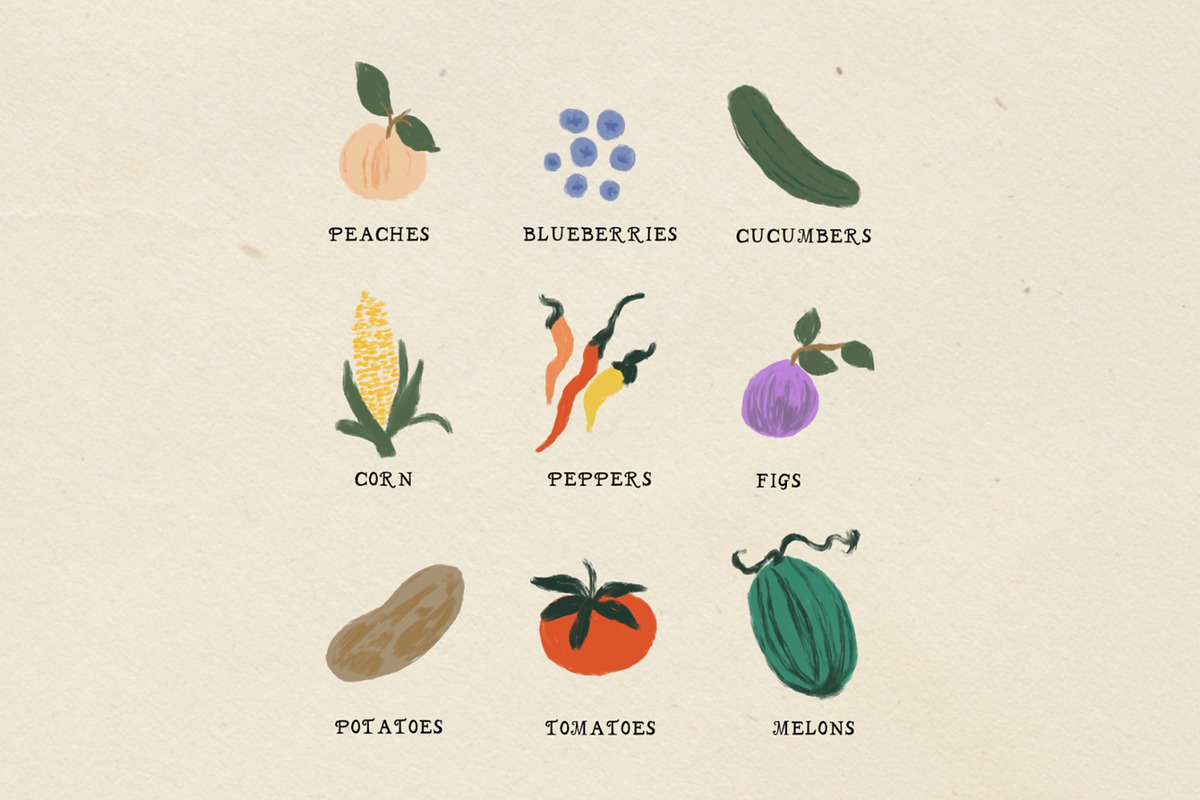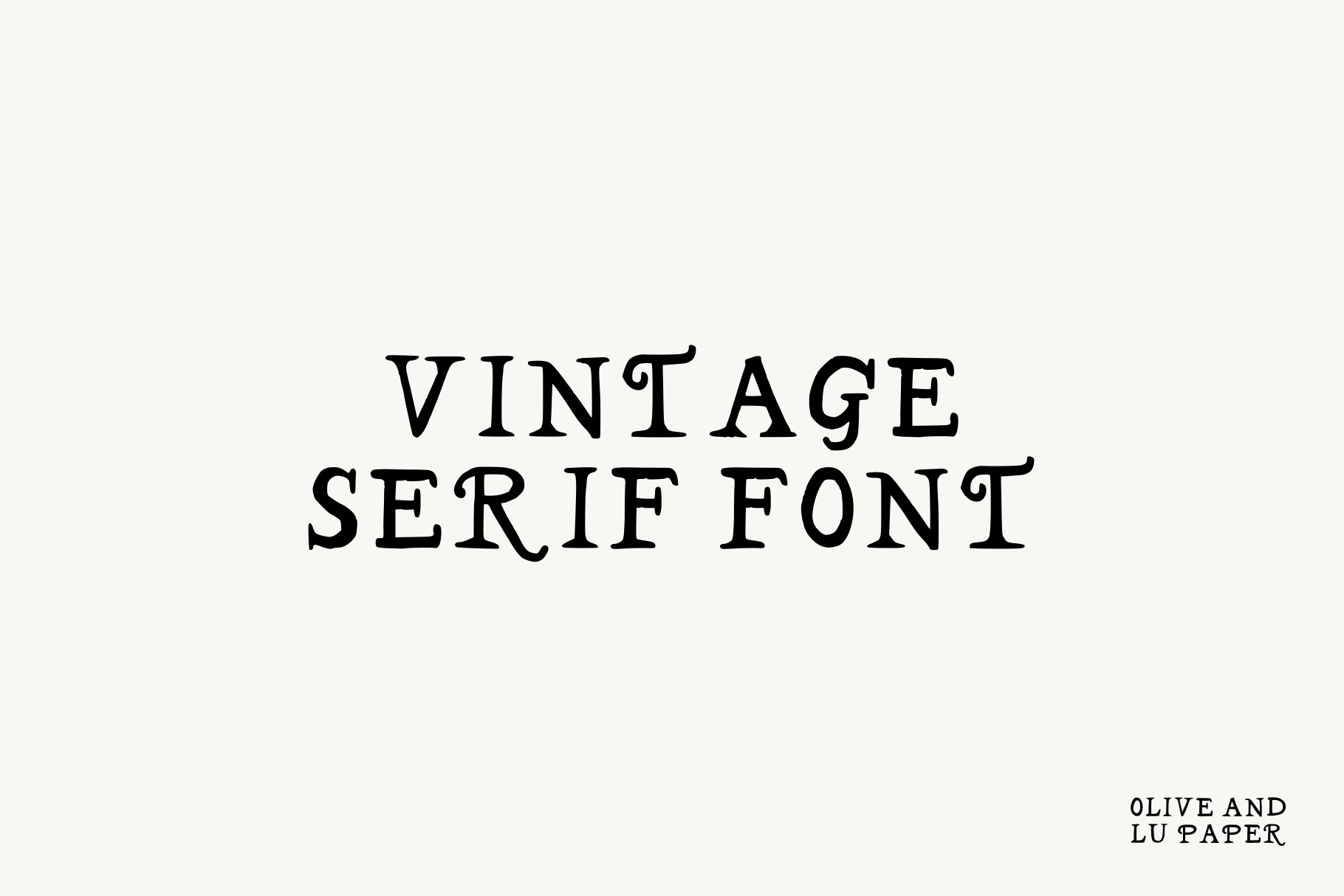
Vintage Serif Font
This Vintage Serif font is hand drawn, and made for all occasions. Pairs nicely with our Pinky Sans font.
There is NOT an alternate available for every letter - only certain letters. Only caps, no special marks
Vintage Serif is perfect for: branding, logos, invitations, greeting cards, posters, magazines, social media, graphics and websites.